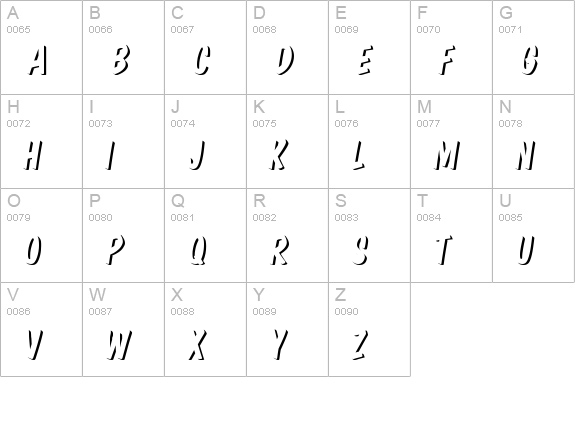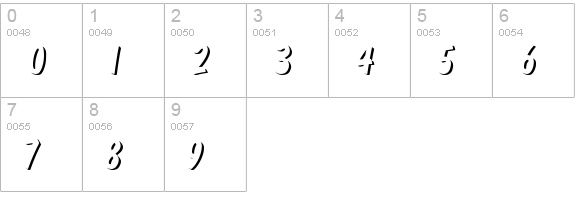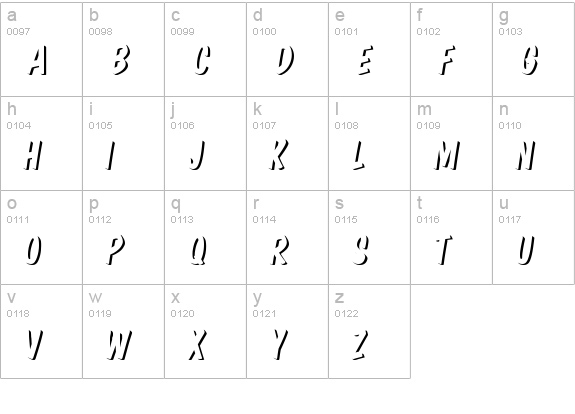
Komika Title - Emboss Font Details
Komika Title - Emboss font is a unique and eye-catching typeface that adds depth and dimension to your designs. This bold and stylish font features a distinctive embossed effect, making it perfect for headlines, logos, and other display purposes. Its modern yet classic appearance gives a touch of sophistication to any project. Best of all, Komika Title - Emboss font is available for free download at FontsMarket.com. This means you can easily access this striking font and incorporate it into your creative works without any cost. Don't miss out on this fantastic opportunity to enhance your designs with the striking Komika Title - Emboss font. Download it today and make your projects stand out!